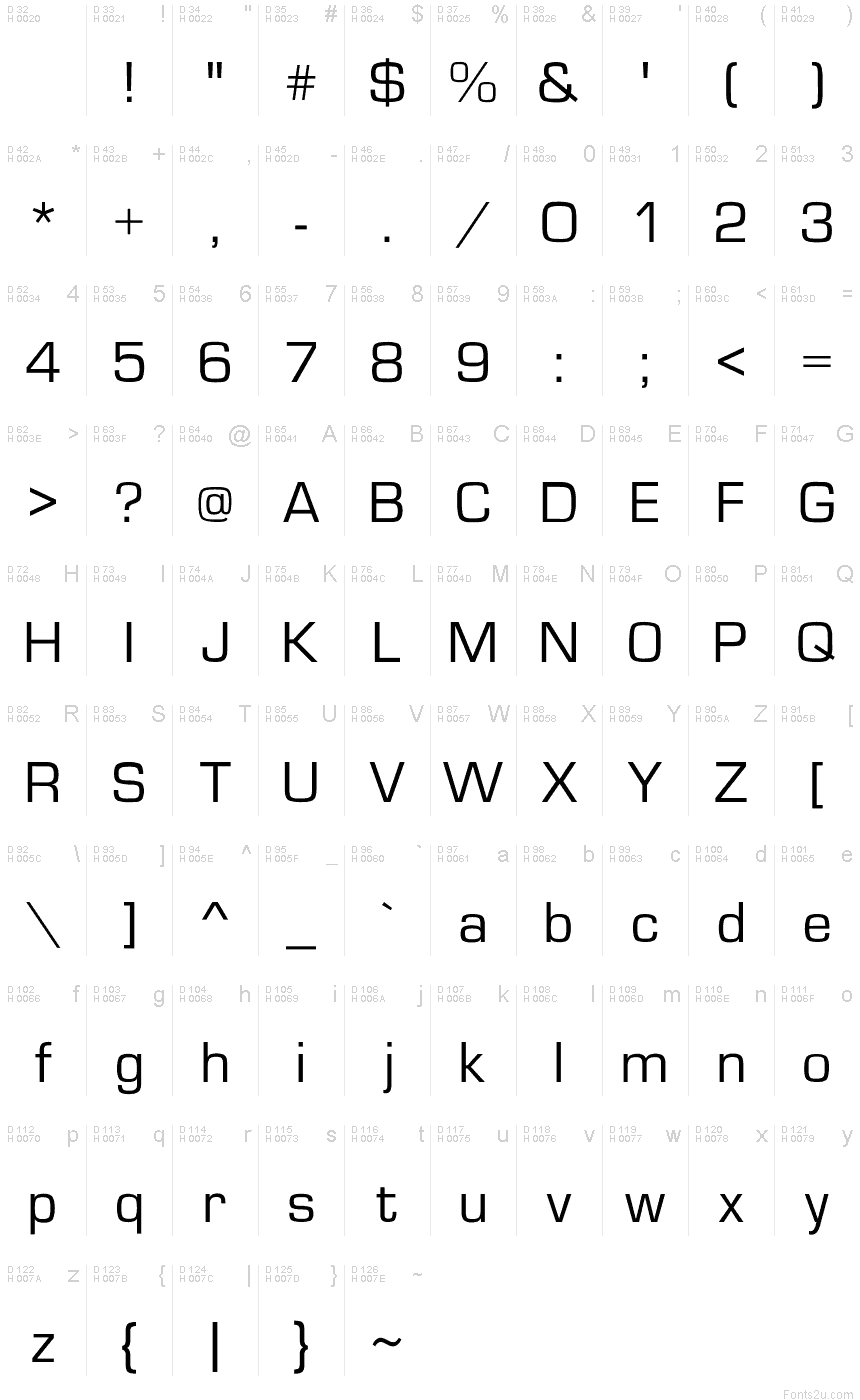
Franconia
Franconia font is a free sans serif typeface. Its lean, straight-sided letters and open counters keep text feeling airy, so even dense copy stays readable on screens and small print. Sturdy strokes give it a quiet confidence, while the clean, unadorned shapes slip easily into minimalist layouts without feeling cold or generic.
Using Franconia, you can unify UI labels, app menus, body text, pitch decks, infographics, catalogues, and long-form articles with one calm, consistent voice. This free font scales smoothly from tiny captions to bold section titles; try pairing it with a simple geometric sans in heavier weights for contrast.